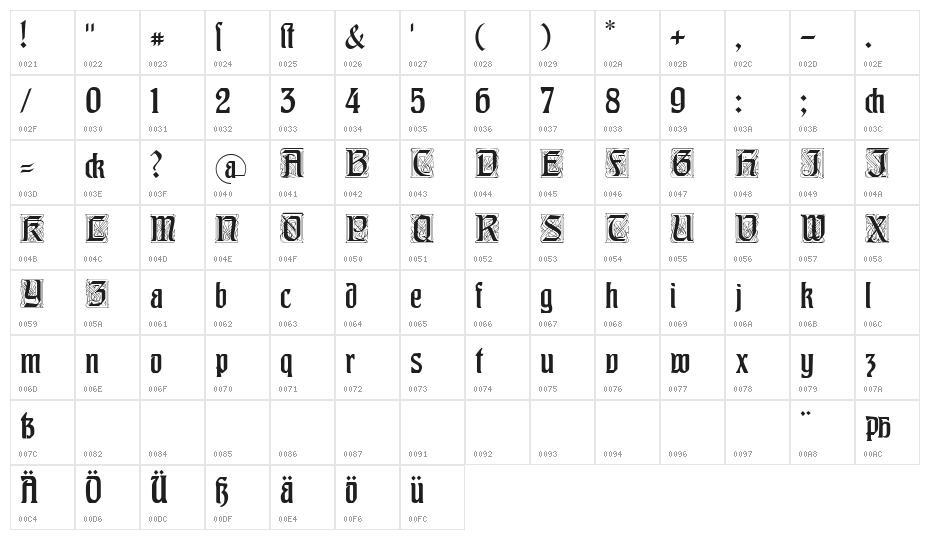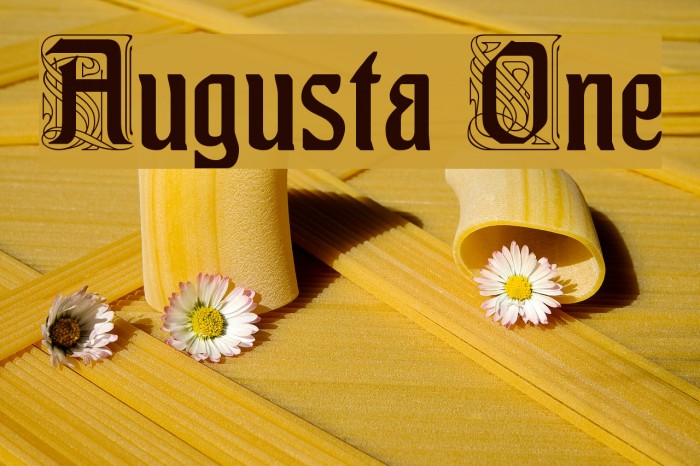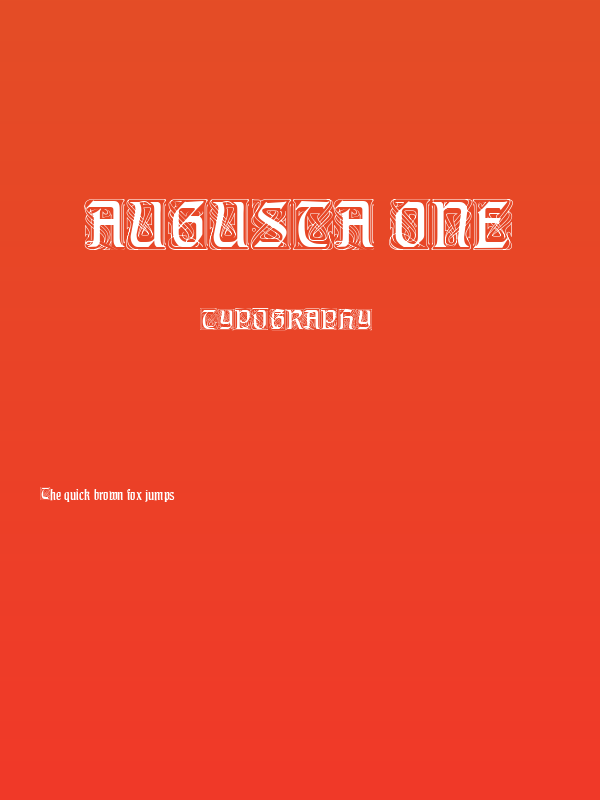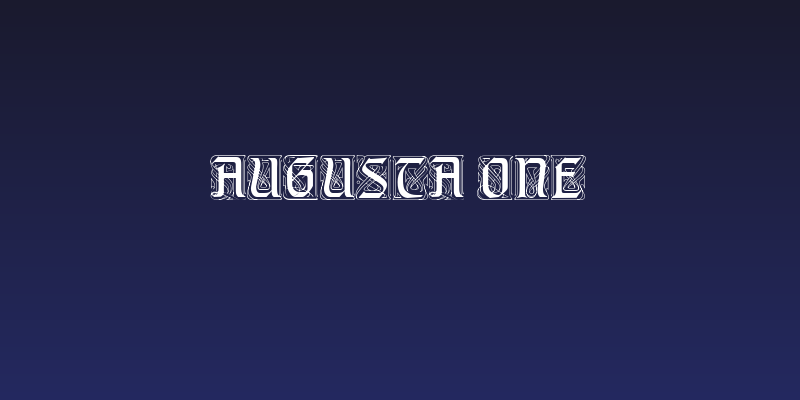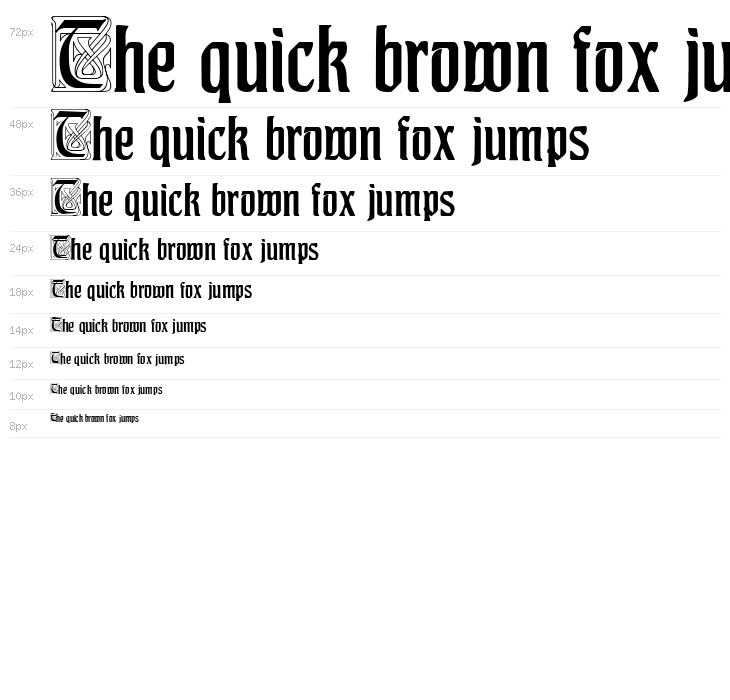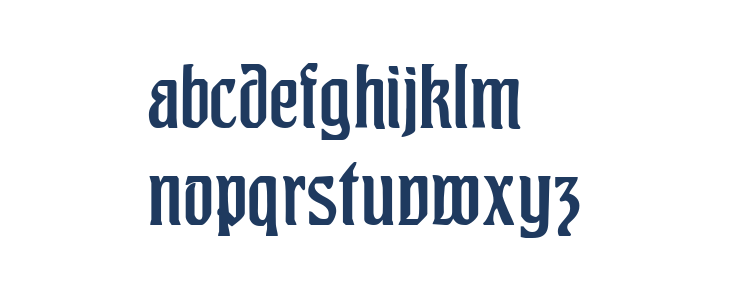
Augusta One Font
Augusta One Description
This font features an intricate and decorative uppercase style with elaborate patterns and embellishments, giving it a regal and ornate appearance. The lowercase letters are bold and slightly condensed, maintaining a strong presence with a touch of elegance. The numerals are consistent with the lowercase style, offering a bold and clear presentation. Special characters are designed to match the overall aesthetic, providing a cohesive look across all elements. This font is ideal for projects that require a touch of sophistication and grandeur, making it suitable for invitations, branding, and decorative purposes.
| Proposed Projects | Ideal for wedding invitations, luxury branding, decorative headings, and artistic projects. |